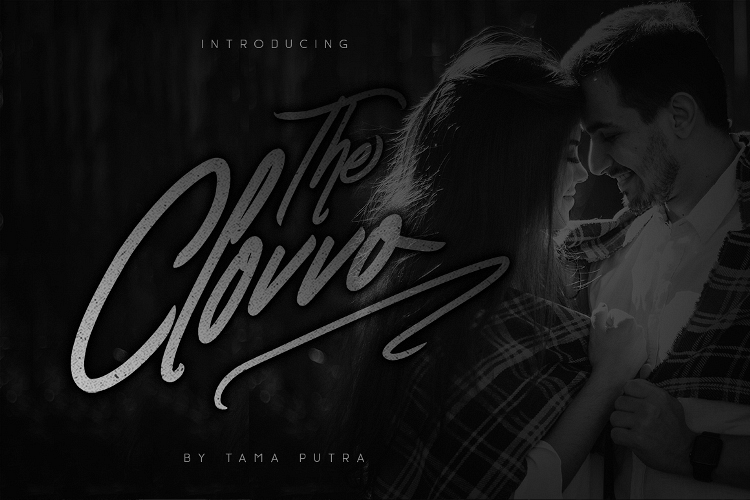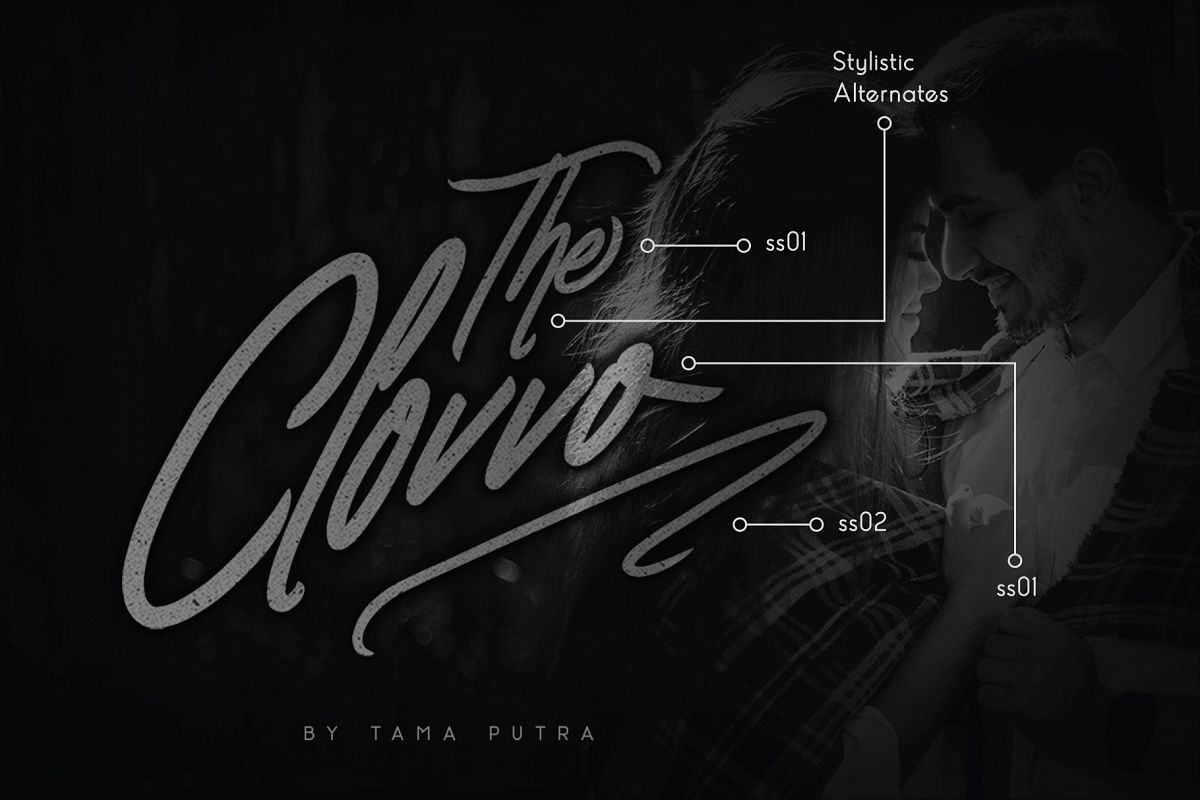
Clovvo Typeface
Clovvo is a romantic handwritten script typeface. It is suitable for
any design needs, branding, cover title, t-shirts, posters and more.
The Clovvo typeface includes multi-lingual and currency support,
numerals, and punctuations. It comes comes with stylistic alternates,
ss01, ss02.